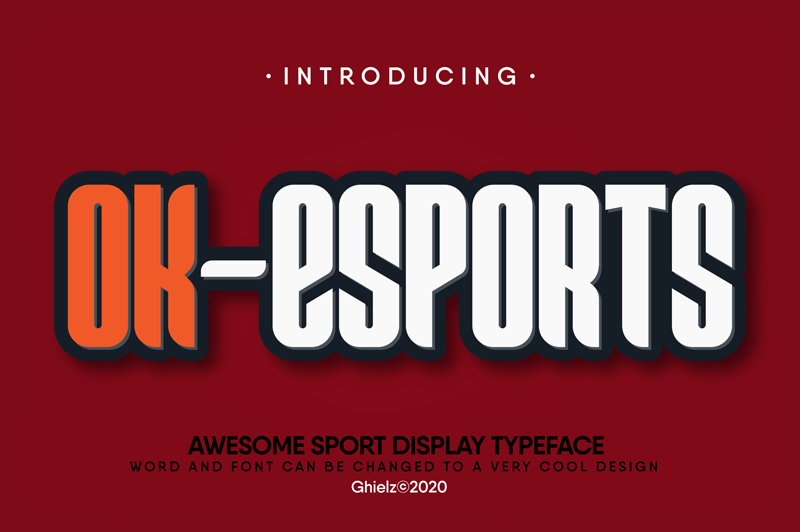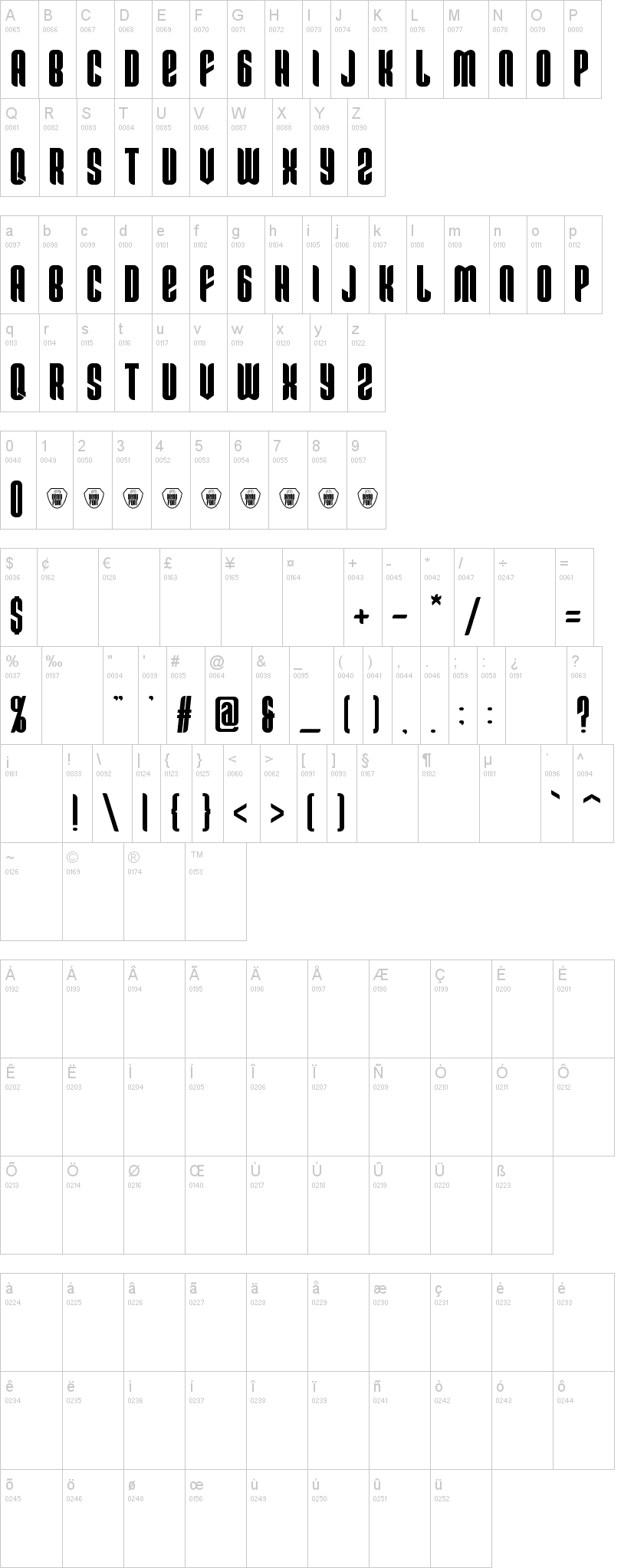
Note of the authorOk-Sport is a very bold font, with softened angles and dynamic effects. The "Ok-Sport" font has a unique appeal and easy visual readability, making it perfect for headlines, whether for sporting events, automotive posters, logos, or monogram designs.